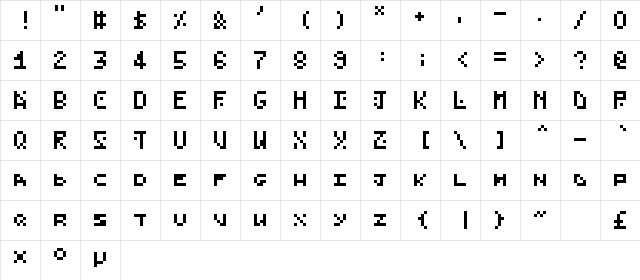
RetroBoundmini Medium Font Preview
RetroBoundmini Medium
Design Context for RetroBoundmini Typeface
RetroBoundmini wears its vintage influences proudly, with letterforms that recall mid-century signage, classic packaging, and nostalgia-driven design.
Font Pairing: Combine RetroBoundmini with a simple slab or neutral sans — period-accurate companions reinforce the vintage feel without competing for attention.
Pro Tip: Lean into RetroBoundmini's period character by pairing it with aged paper textures, muted colour palettes, and vintage illustration styles.